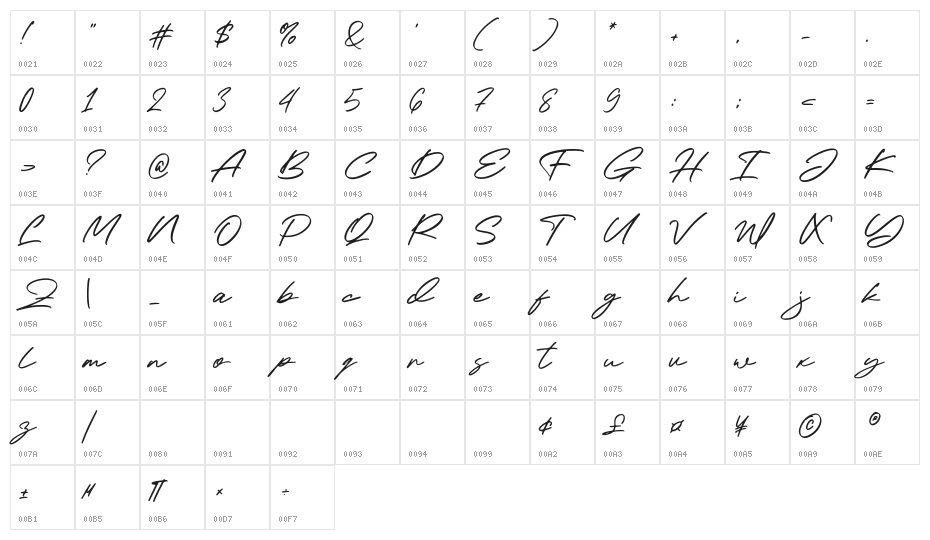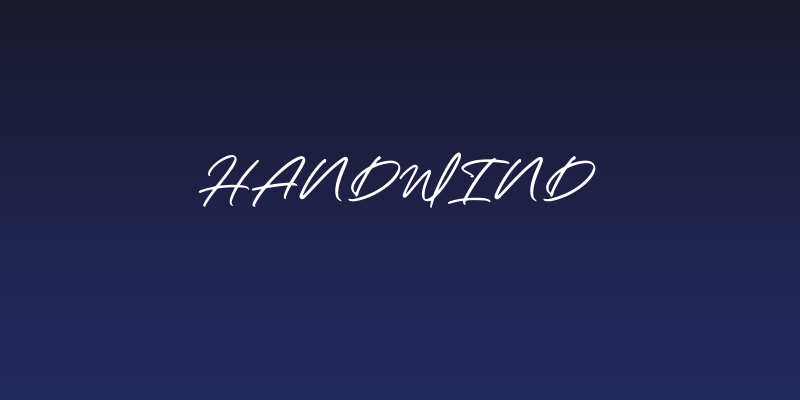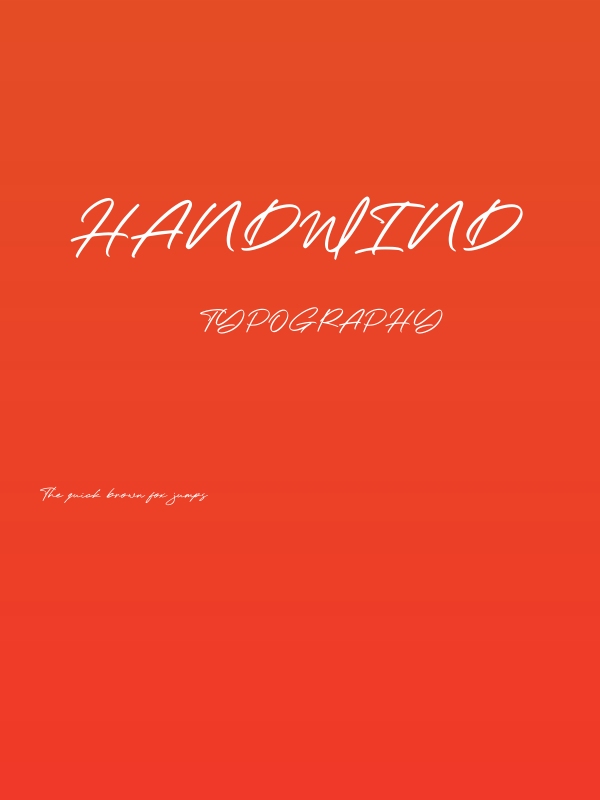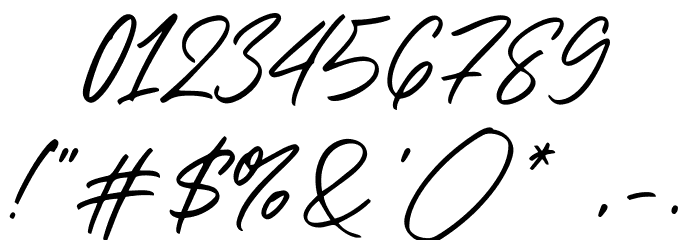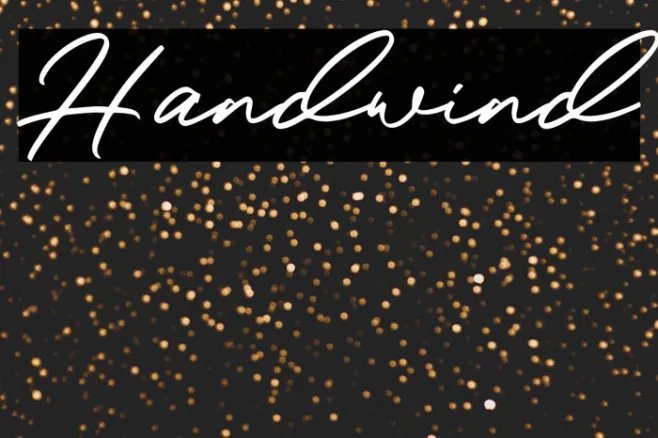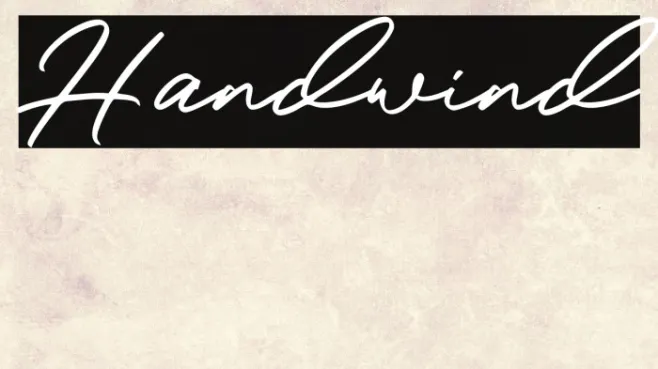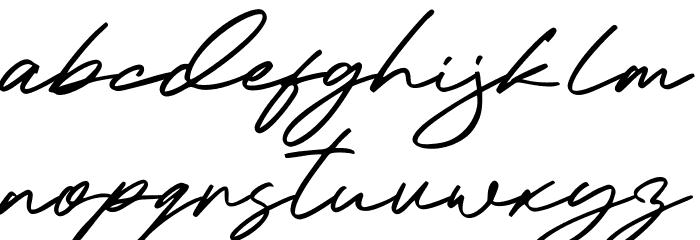
Handwind Font
Handwind Description
This font exudes a casual, handwritten charm, characterized by its fluid, cursive strokes that mimic natural handwriting. The letters are elegantly connected, creating a seamless flow across words. Its slightly slanted orientation adds a dynamic and personal touch, making it feel intimate and approachable. The uppercase letters maintain a consistent height, while the lowercase letters vary slightly, enhancing its organic appearance. The numerals and special characters are crafted with the same attention to detail, ensuring a cohesive look throughout. This font is perfect for projects that require a personal, human touch.
| Overall Style | Casual, Personal |
| Use Case | Invitations, Personal notes, Branding |
| Proposed Projects | Ideal for wedding invitations, personal letters, branding for artisanal products, and any project needing a personal touch. |